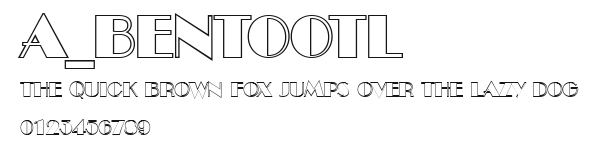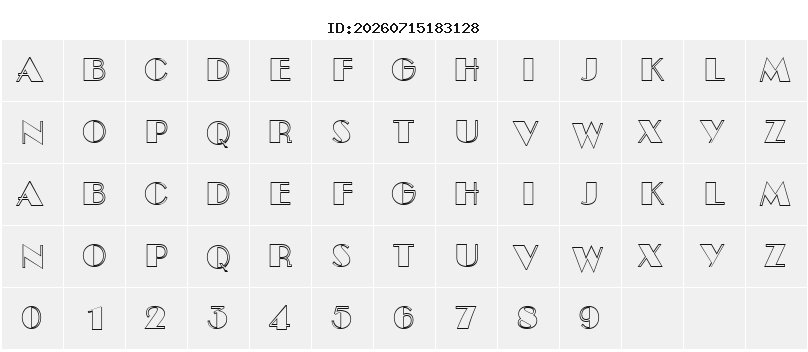
a_BentoOtl Preview
• Font Name: a_BentoOtl
• Full Font Name: a_BentoOtl
• Designer: W.Chufarofsky & M.Slutsker
About a_BentoOtl.ttf
a_BentoOtl.ttf is a modern, elegant sans-serif font designed for ultimate readability and visual harmony. Perfect for branding, headlines, web design, and print materials.